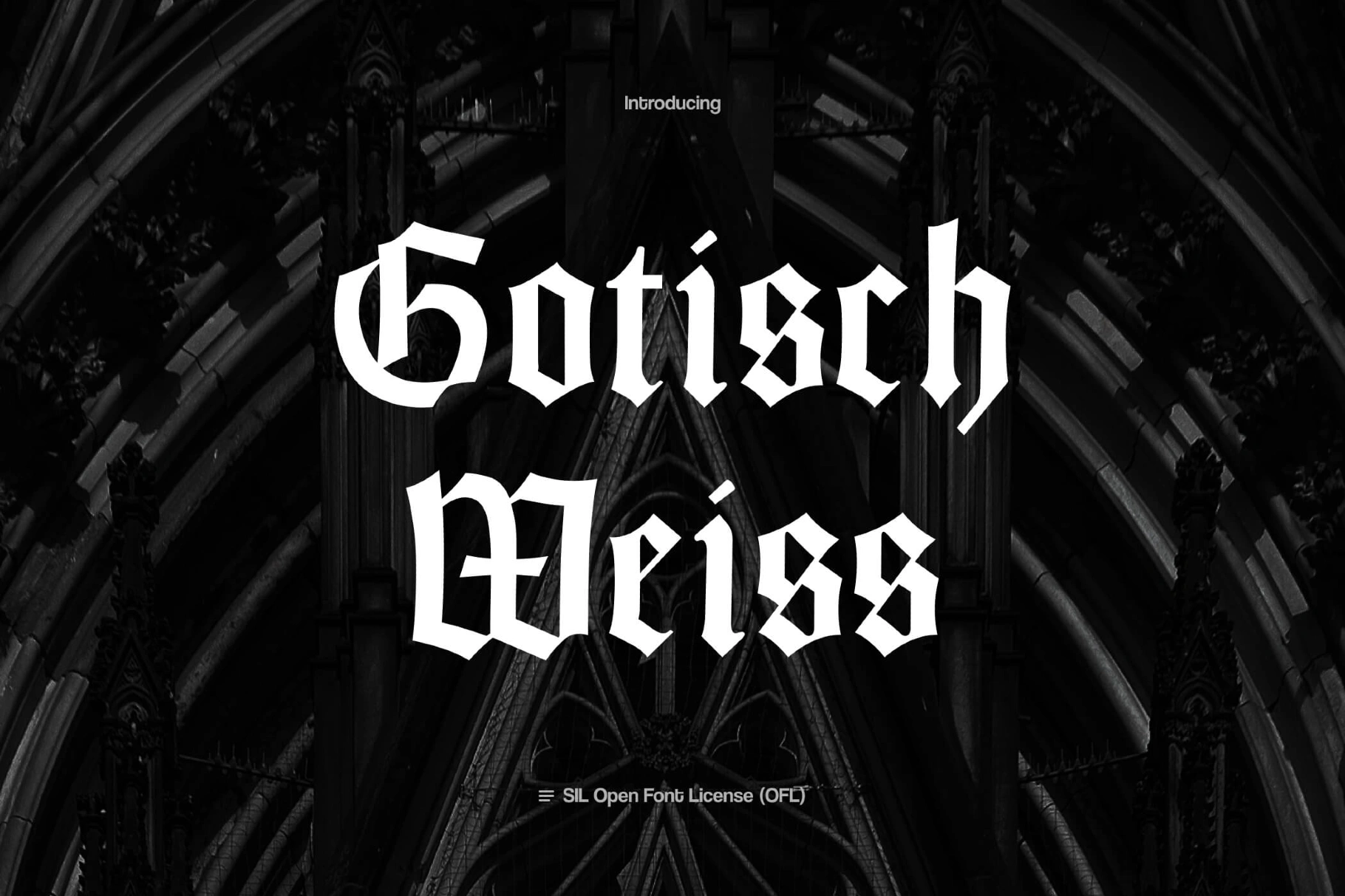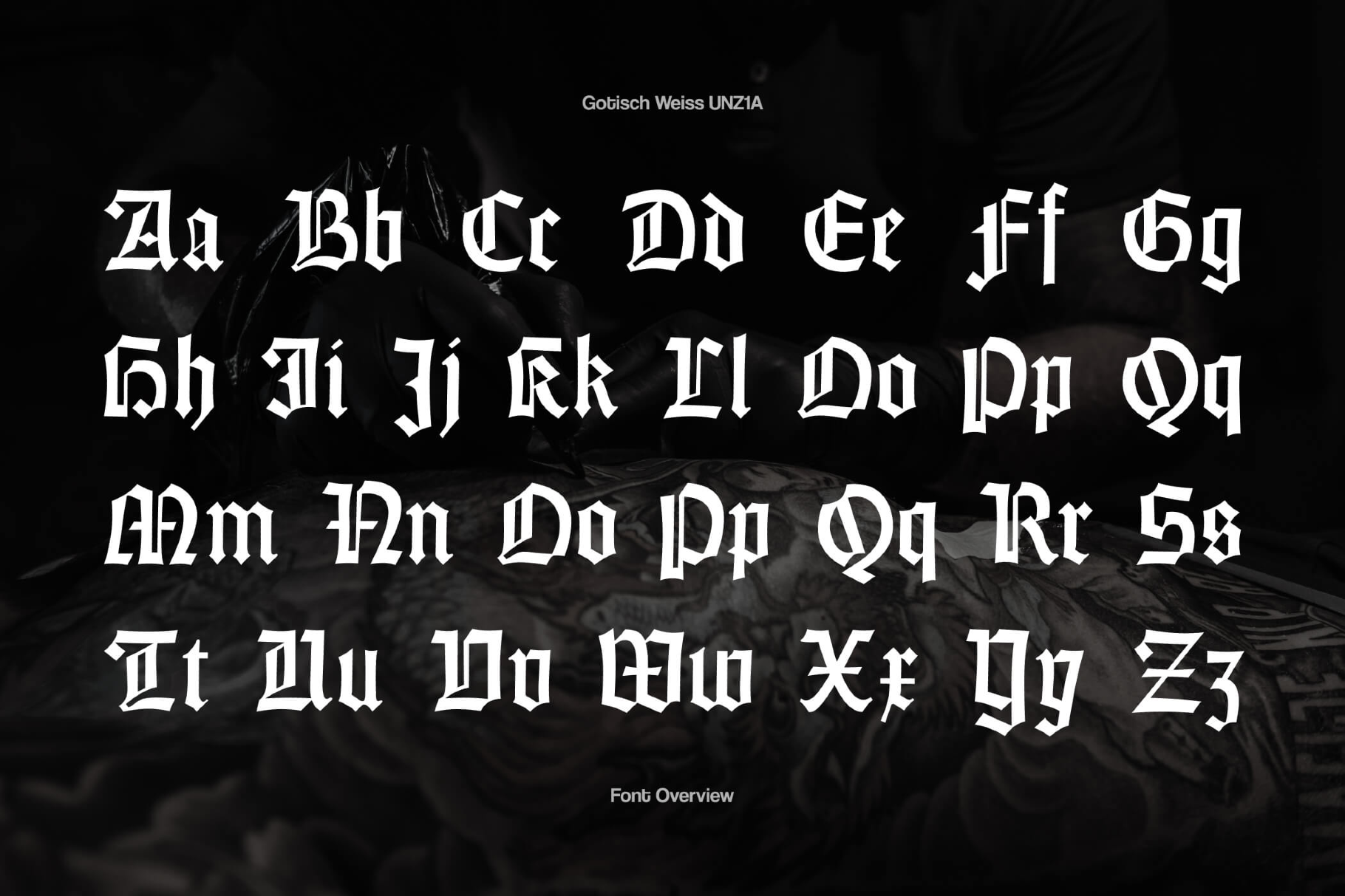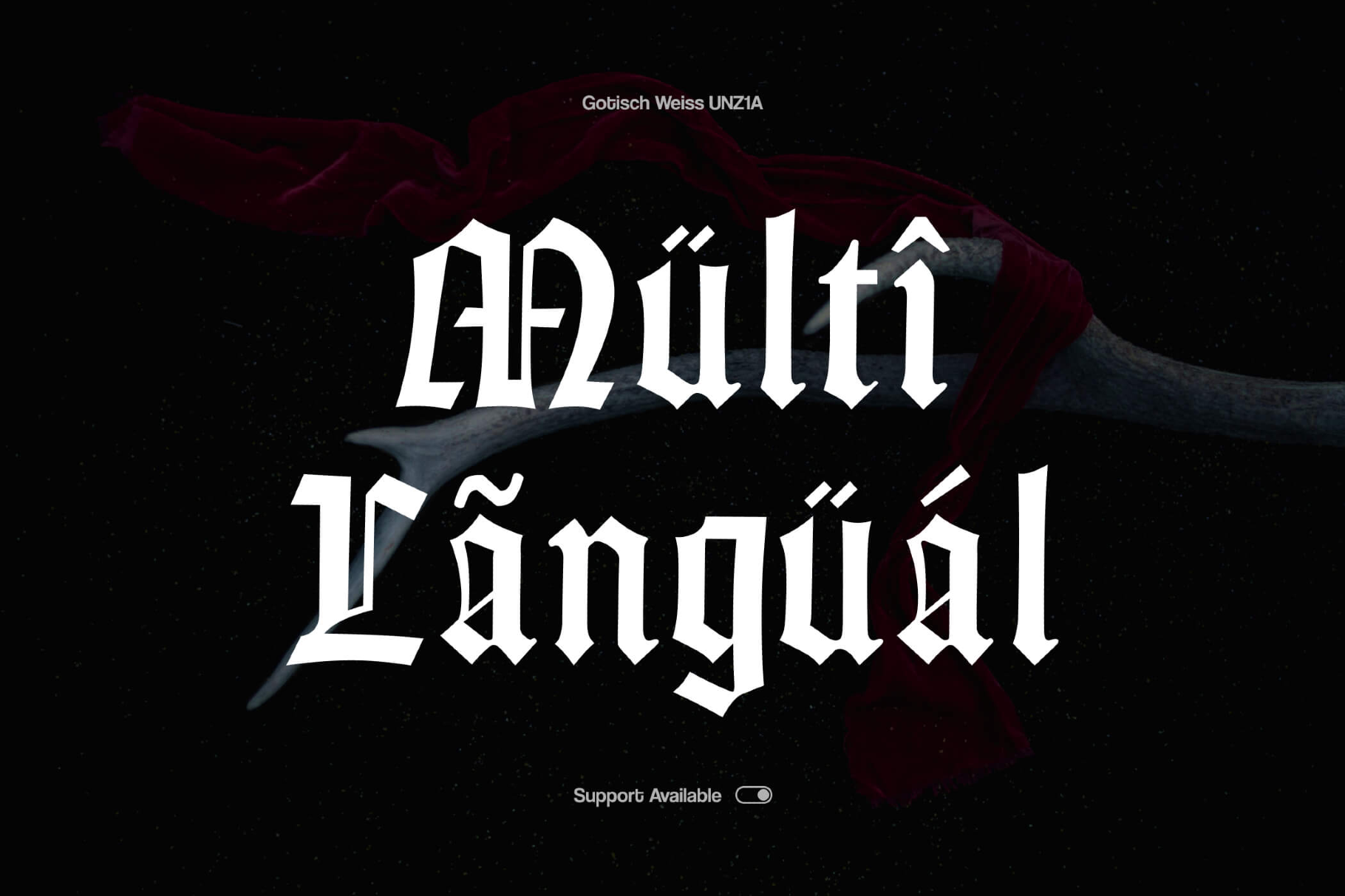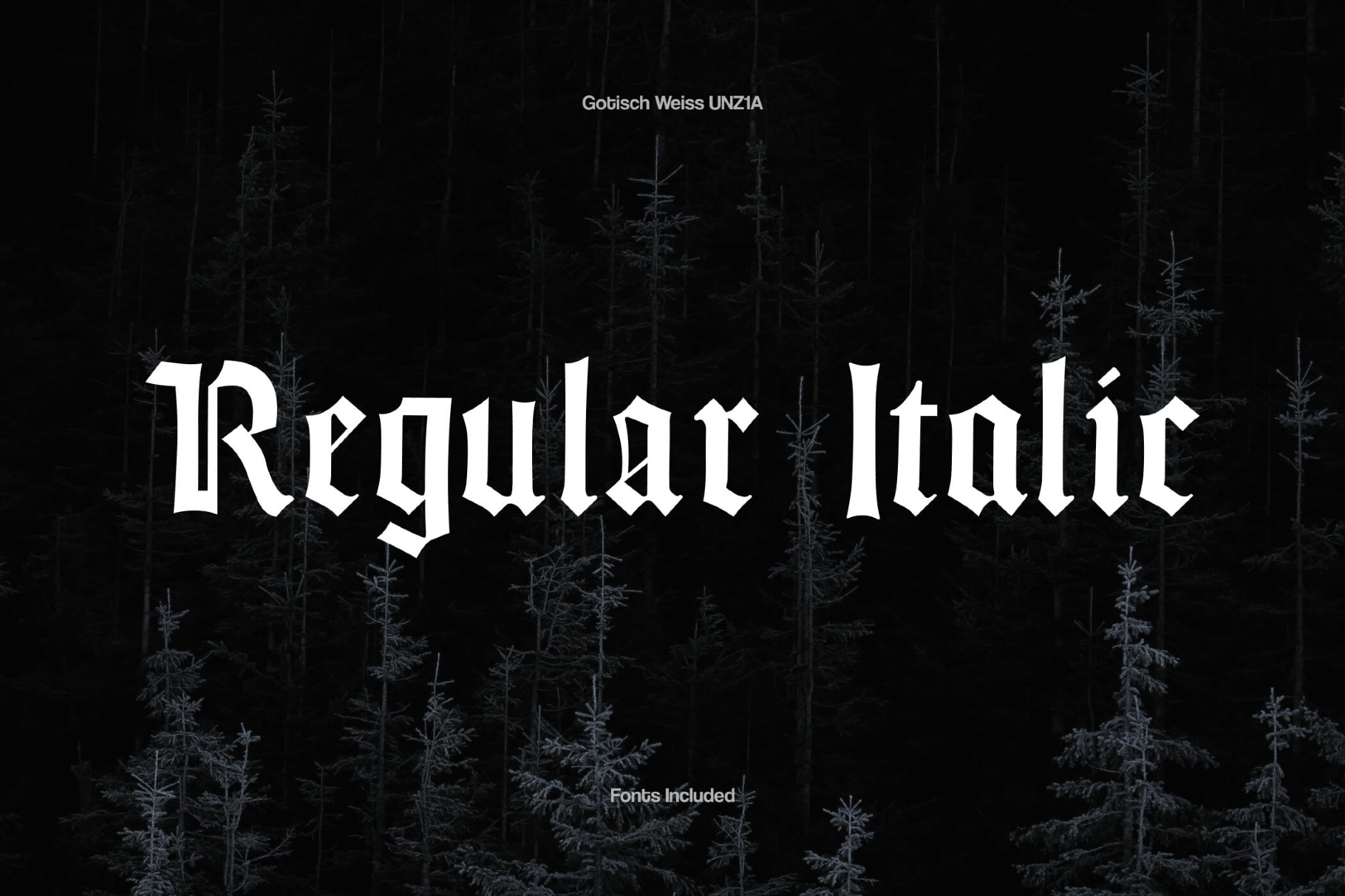
Gotisch Weiss Font Family
This blackletter family revives a 1936 design by Emil Rudolf Weiß. Strong vertical strokes and compact rhythm create the characteristic dense texture of Gothic letterforms, with soft curves and lively details building ceremonial headlines and expressive phrases.
Uses:
• Book covers and title pages for historical, theological, or literary works.
• Posters and flyers for classical concerts, organ recitals, and choral performances.
• Album art and logotypes for metal, folk, industrial, or neoclassical music projects.
• Branding and wordmarks for breweries, wineries, tattoo studios, or barbershops.
• Certificates, diplomas, awards, and commemorative documents.
• Labels and packaging for chocolate, spices, cigars, or specialty beverages.
• Apparel graphics, patches, enamel pins, and merchandise.
• Museum graphics, exhibition titles, and signage for heritage or archival displays.